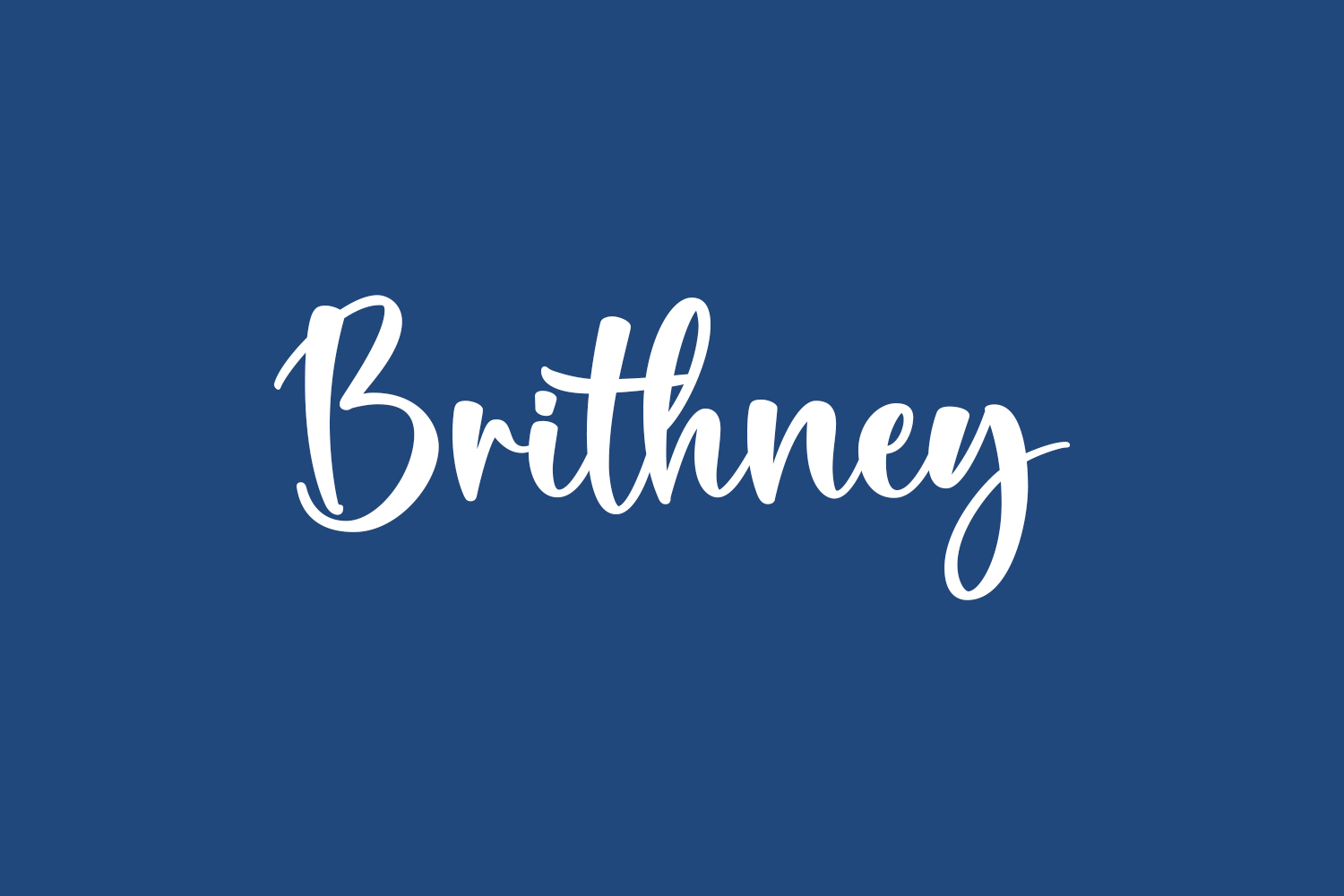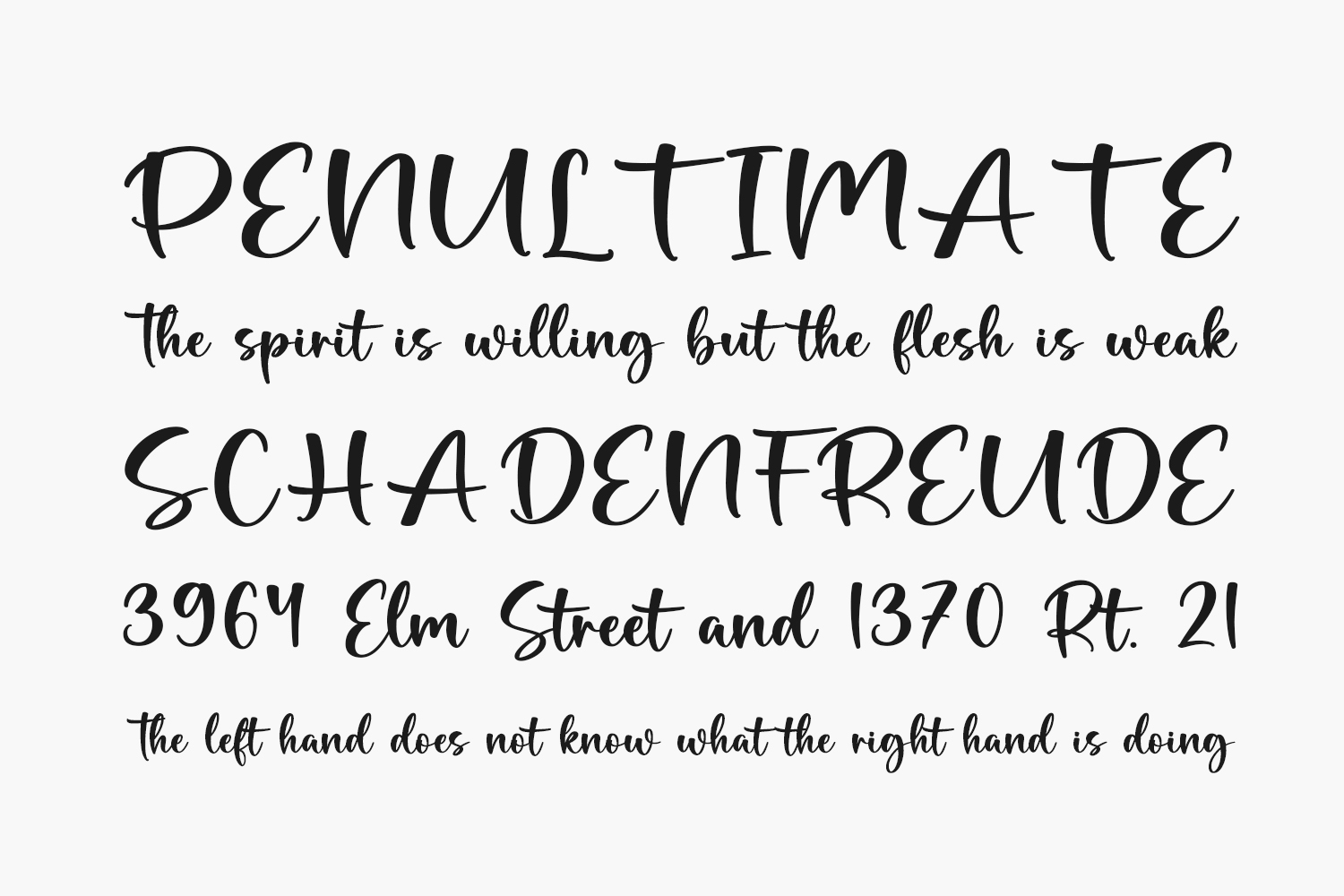
Introducing Brithney Free Font, a graceful and flowing handwritten font that exudes delicacy and elegance. With beautifully balanced characters, this font effortlessly complements a diverse range of designs, making it a versatile choice for various creative projects. Brithney Free Font is free for personal use only. Please purchase the full version for commercial use.